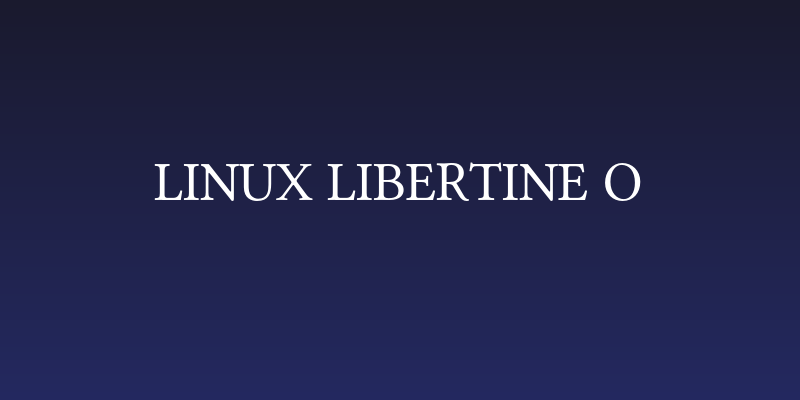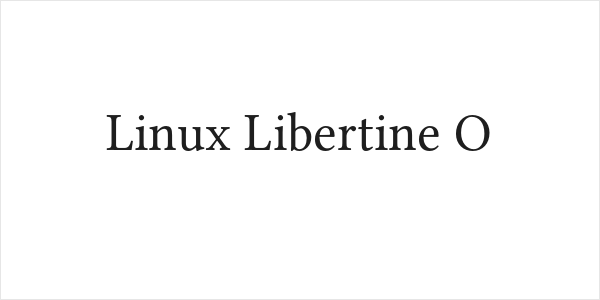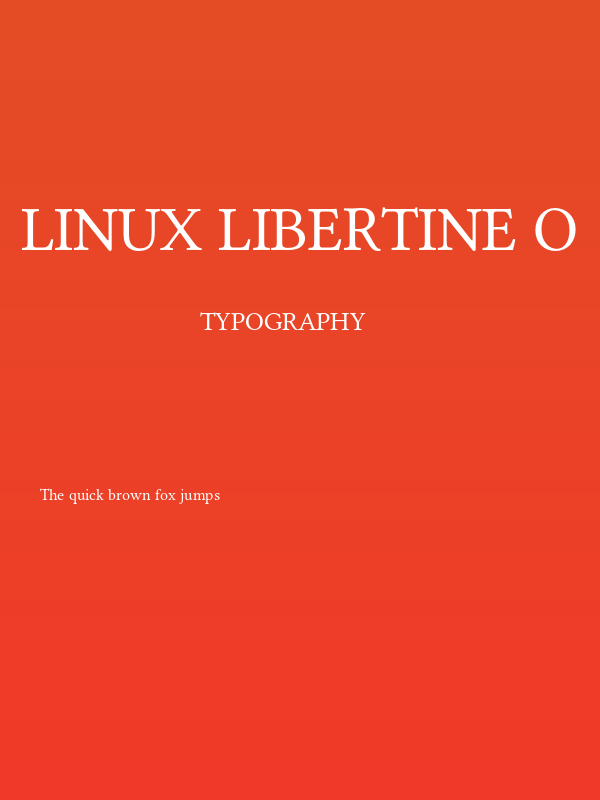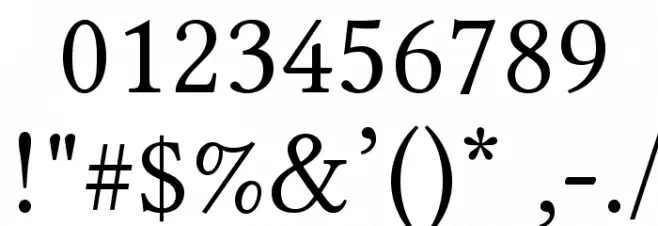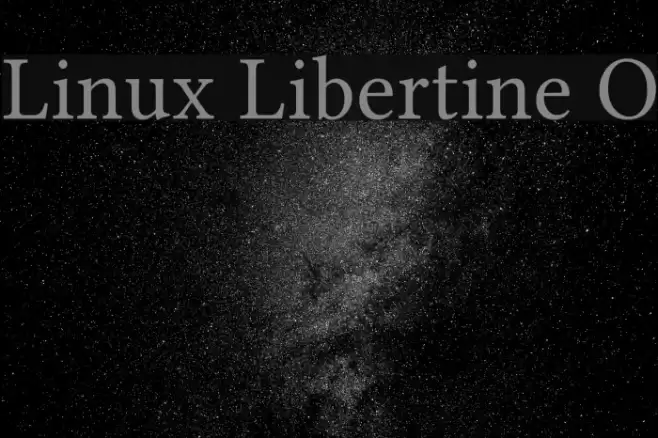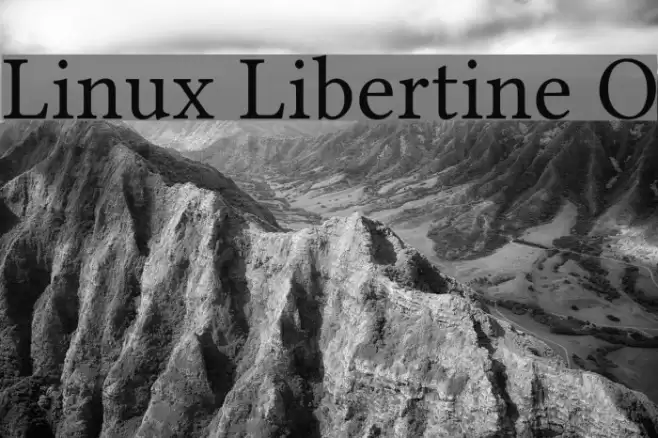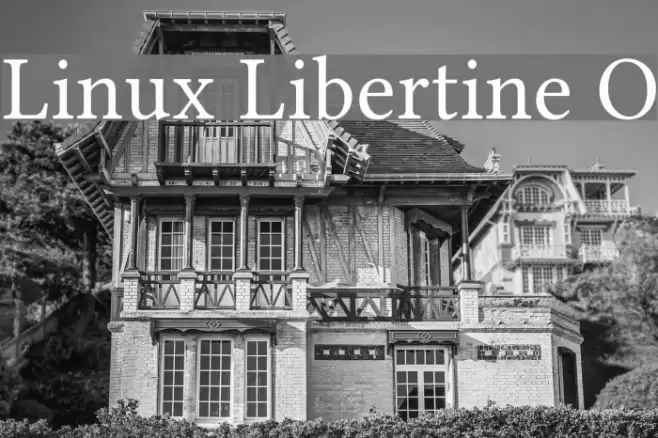
Linux Libertine O Font
Linux Libertine O Description
This font features a classic serif design with a balanced and elegant appearance. The characters are well-proportioned, with a moderate contrast between thick and thin strokes, giving it a refined and sophisticated look. The serifs are gently curved, adding a touch of softness to the overall structure. The font maintains a traditional style, making it suitable for formal and professional settings. It includes a full set of uppercase and lowercase letters, numerals, and a variety of punctuation marks and special characters. The spacing between characters is normal, ensuring readability and clarity in both print and digital formats.
| Use Case | Body text, Headlines |
| Proposed Projects | Ideal for book typesetting, academic publications, formal invitations, and corporate branding. |